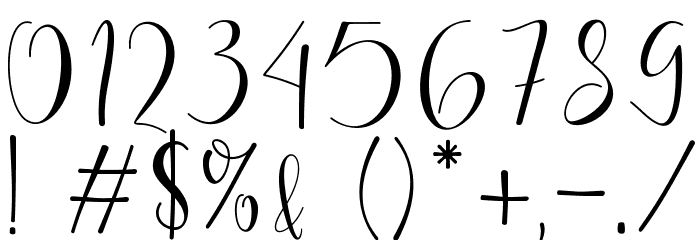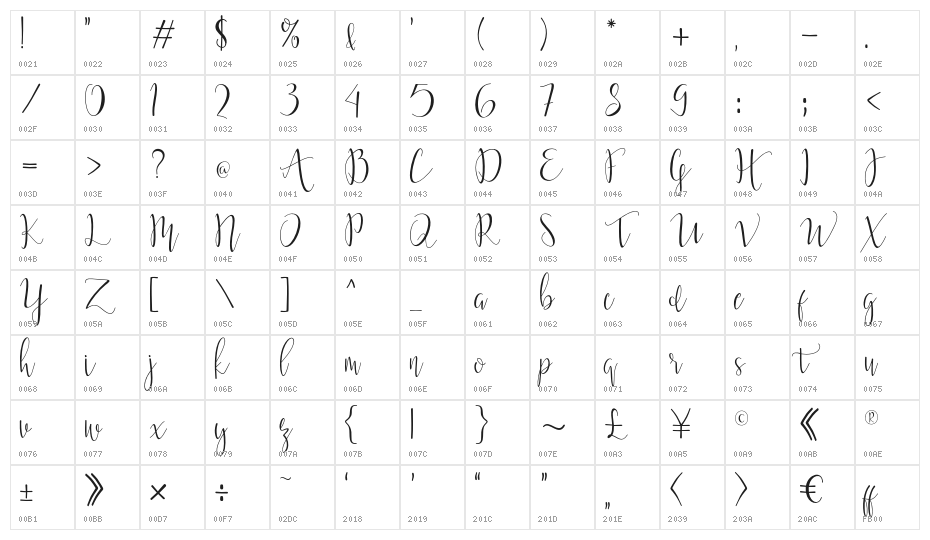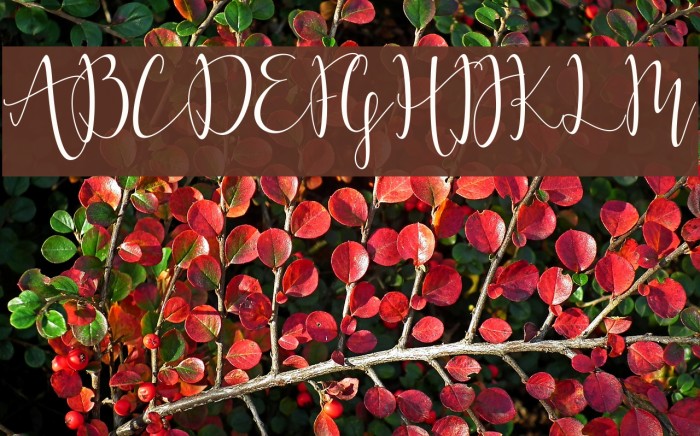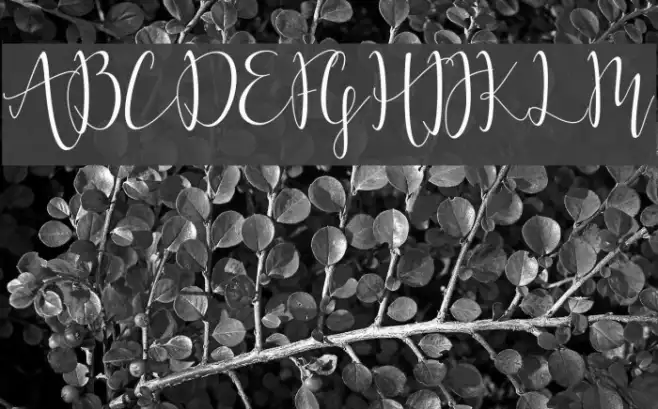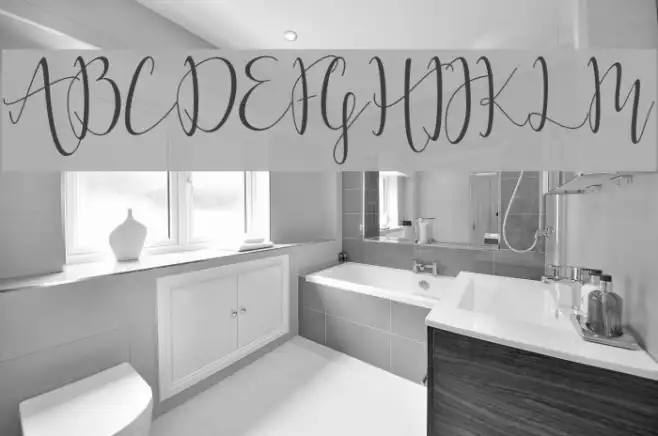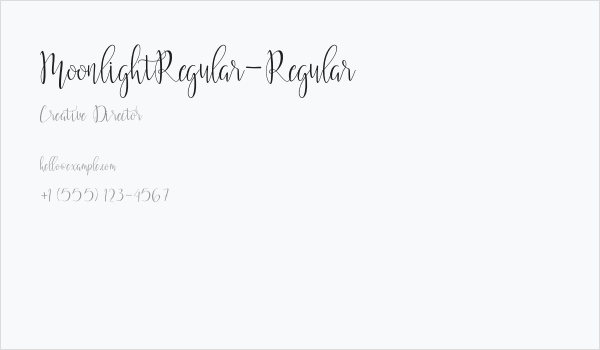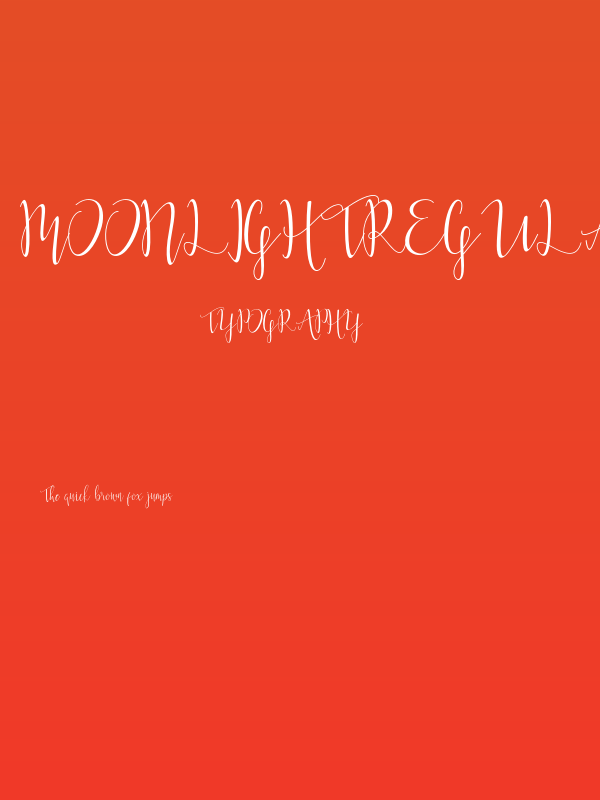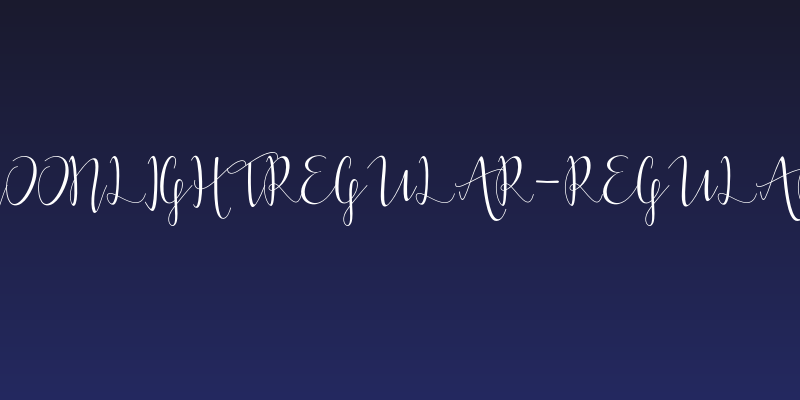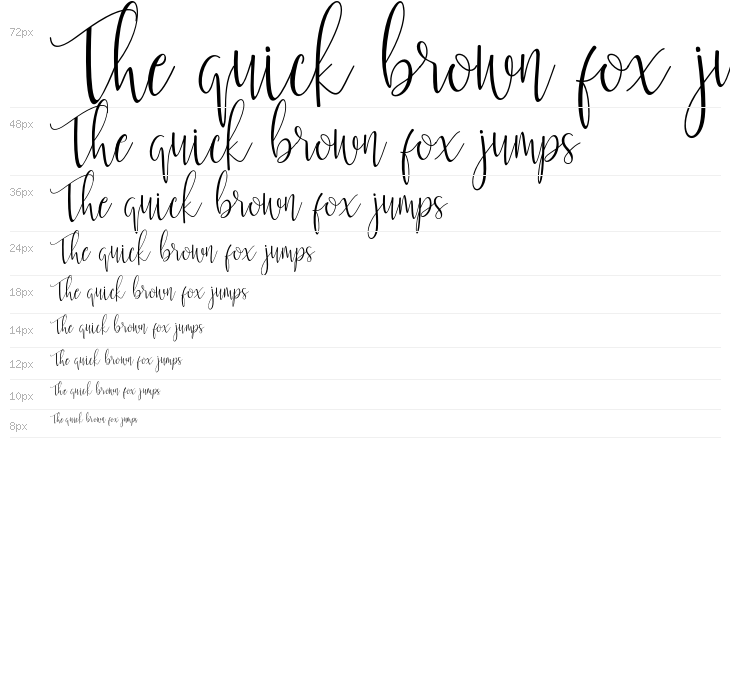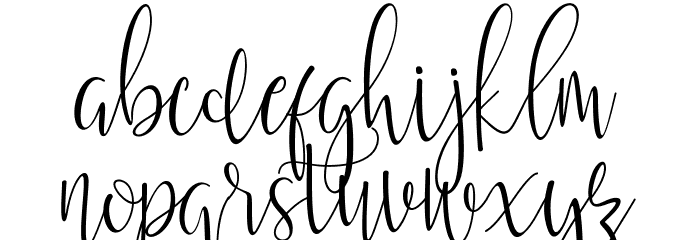
MoonlightRegular-Regular Font
MoonlightRegular-Regular Description
This font exudes elegance and fluidity, characterized by its cursive and flowing script style. The letters are interconnected with graceful loops and swirls, providing a sense of movement and sophistication. The uppercase letters are tall and slender, while the lowercase letters maintain a consistent flow, enhancing readability. The numerals are distinct yet harmonize well with the overall script style. Special characters are designed with the same attention to detail, ensuring they blend seamlessly with the alphabet. This font is ideal for projects that require a touch of elegance and personal flair.